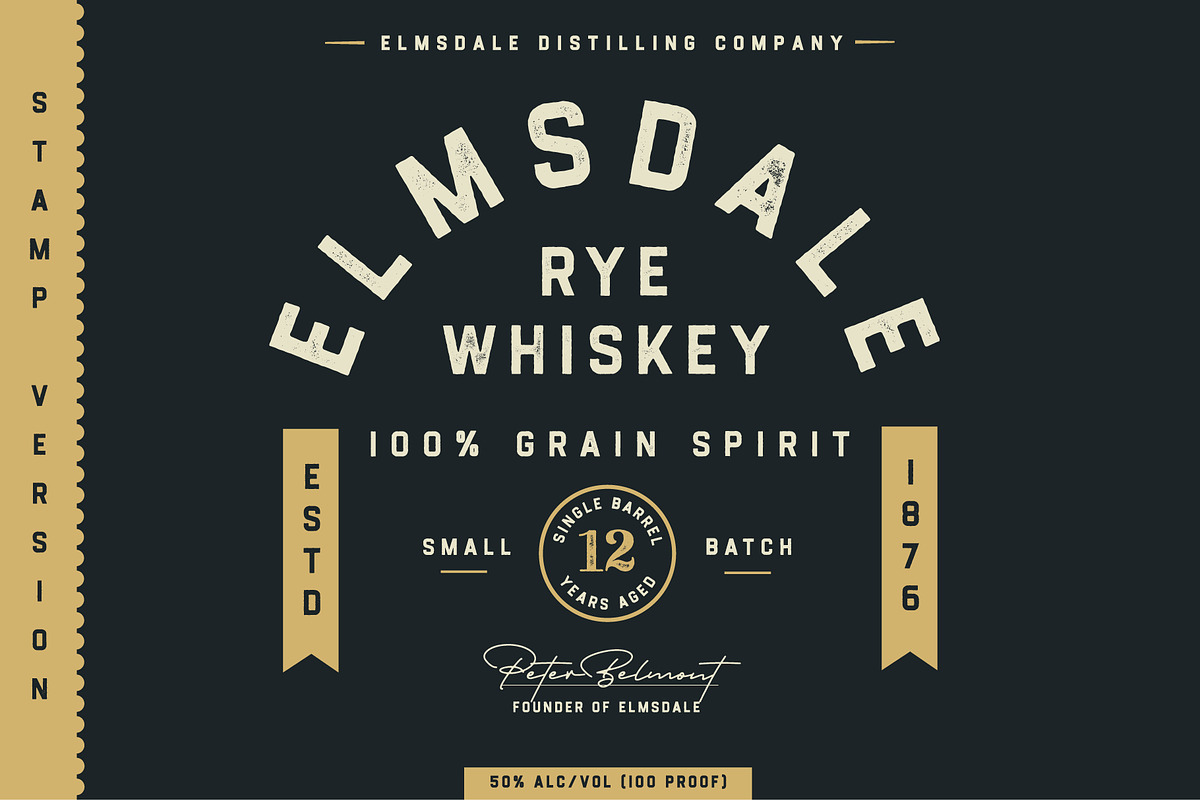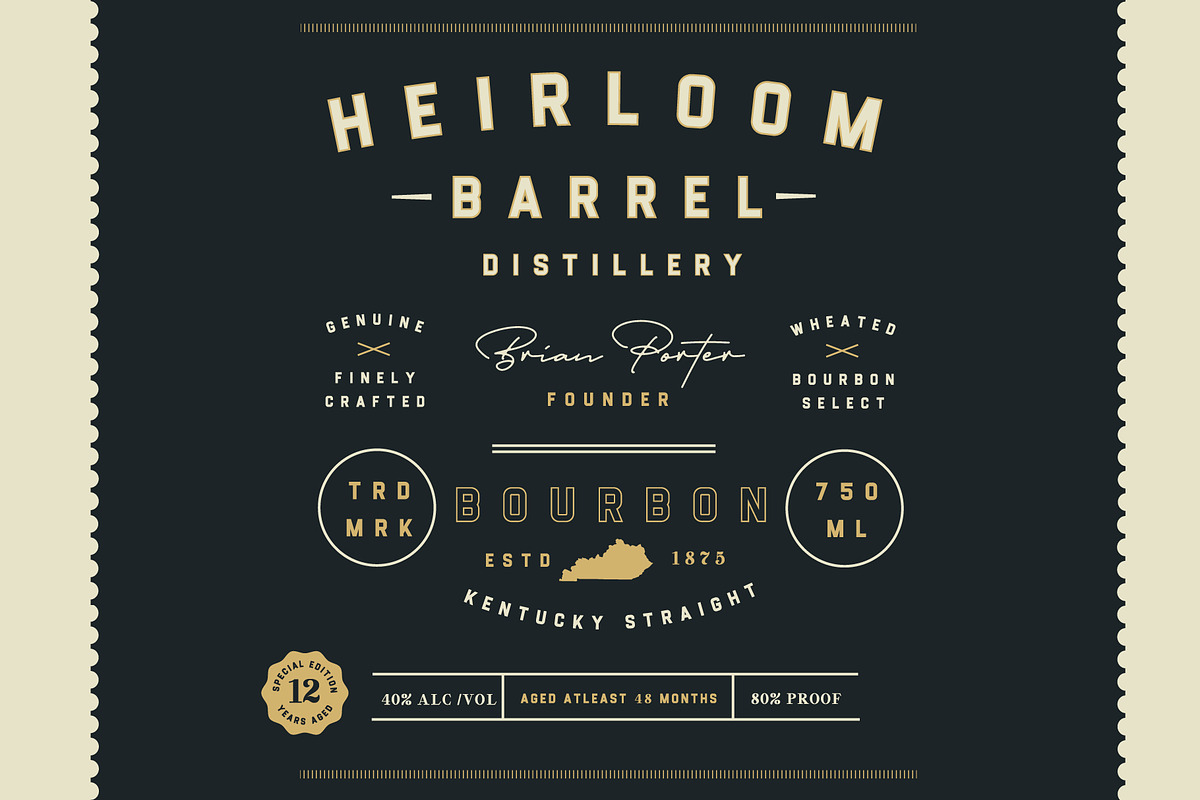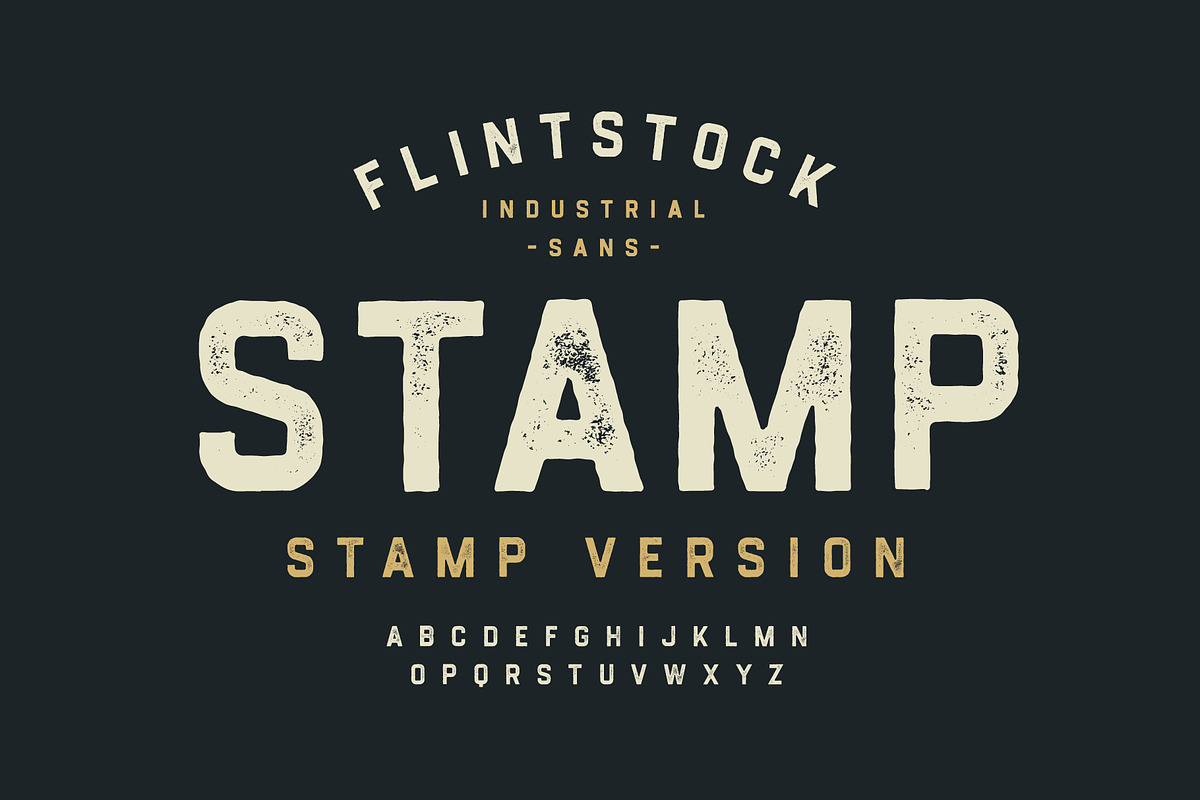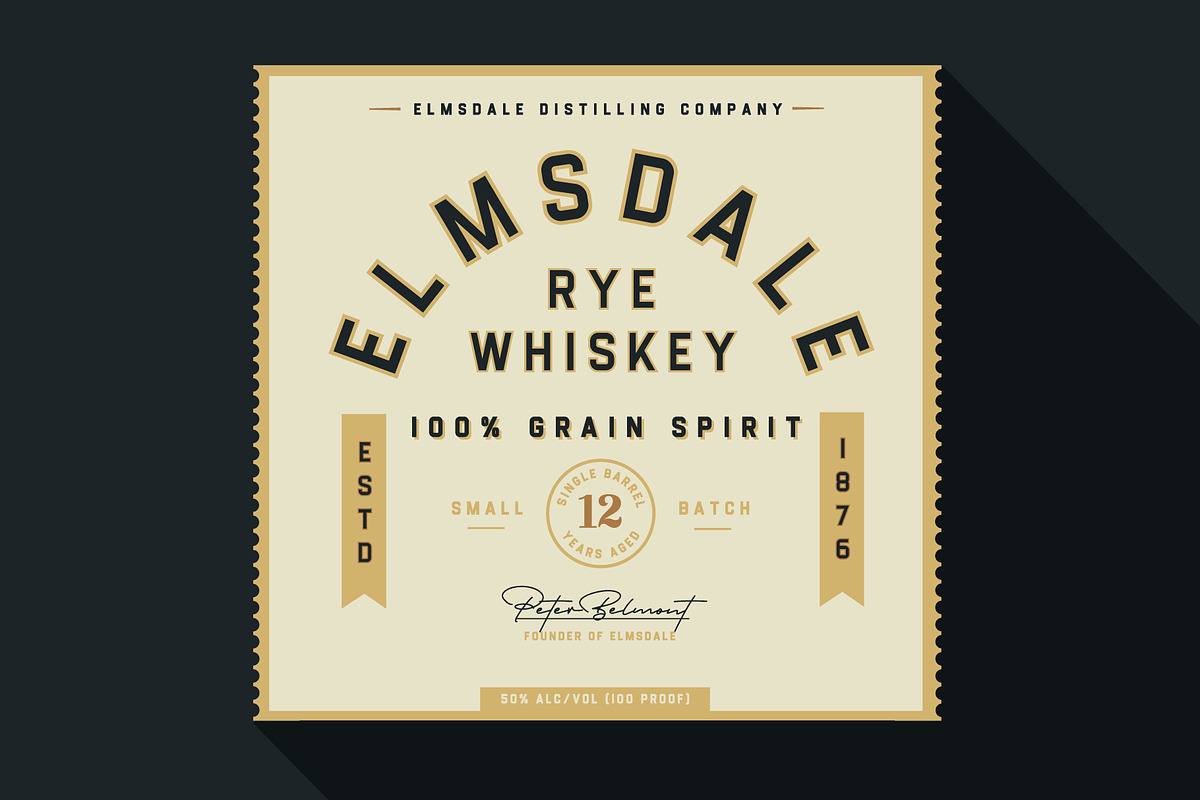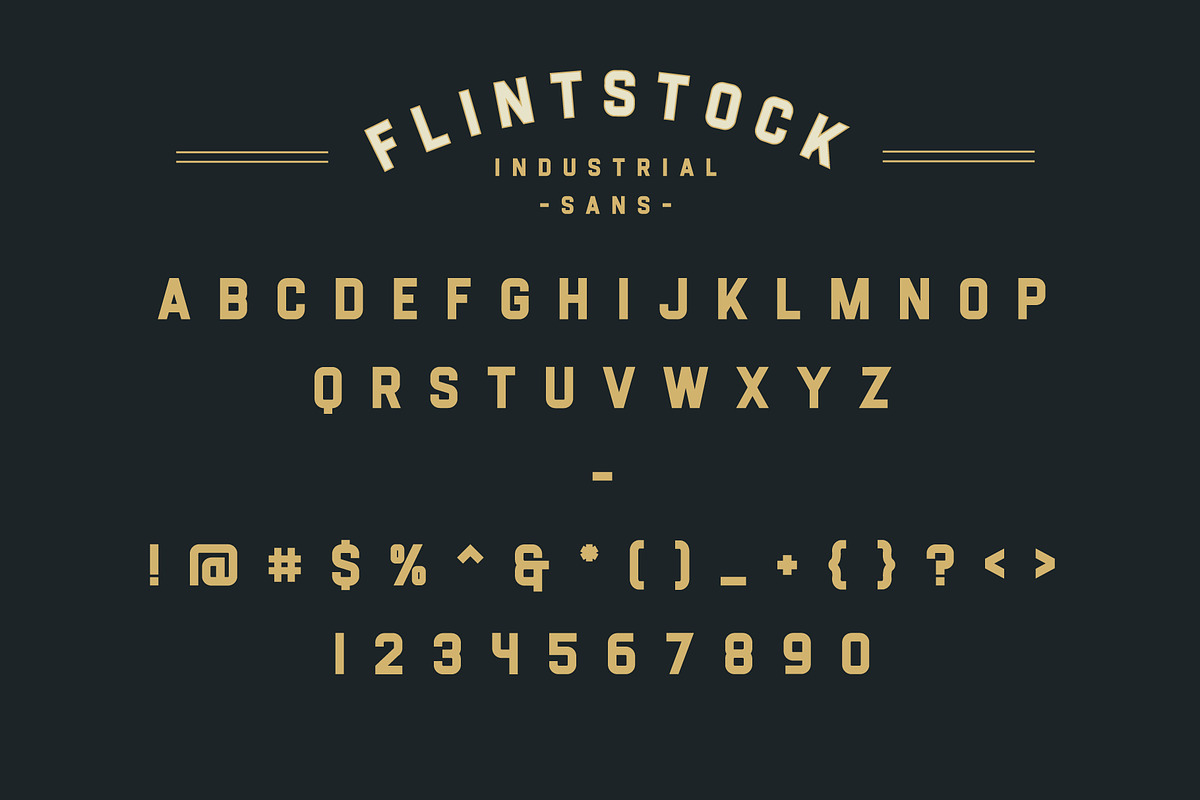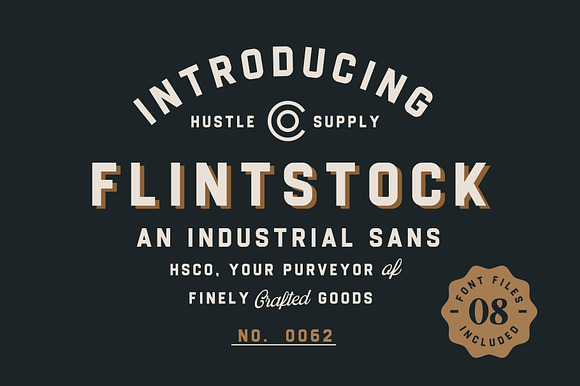
Flintstock - Industrial Display Font
Introducing FlintstockA Vintage Industrial Display Font Family
Flintstock is a strong, bold industrial display typeface that includes 8 OTF Files. I created Flintstock as a work horse typeface that will work on a variety of different projects. Flintstock is a font that you can trust to continually use over and over throughout your Creative Career. It delivers a powerful simplicity, yet conveys the Vintage Industrial vibe without losing the versatility.
Why Flintstock - Industrial Display Font is worth a look
Flintstock - Industrial Display Font by Hustle Supply Co. fits naturally into Branding, posters, packaging, typography.